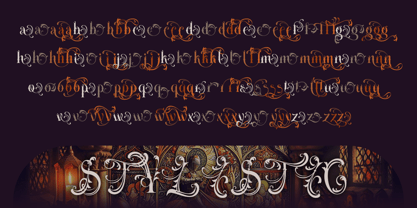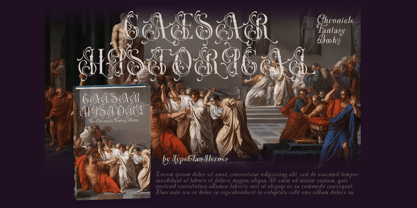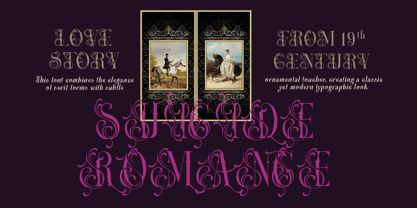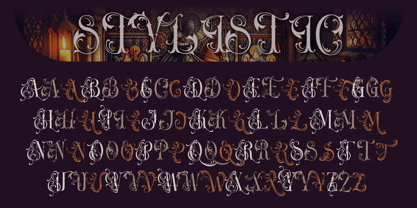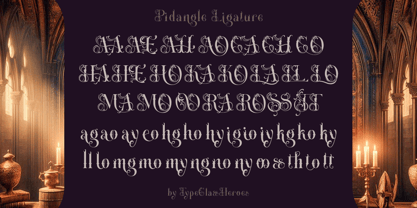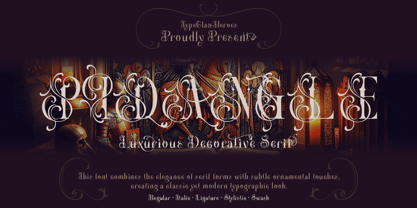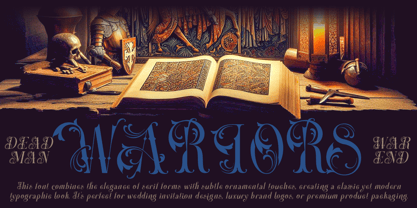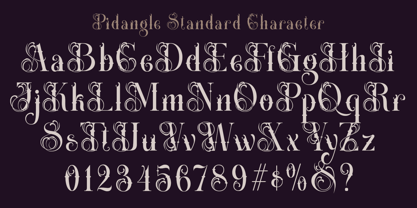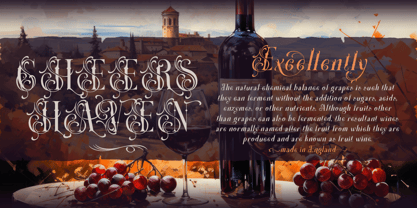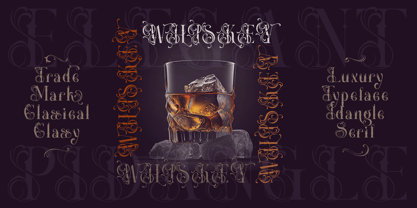
Pidangle
The Pidangle Font Family was designed by Suandana ipandemade and published by TypeClassHeroes. Pidangle contains 2 styles and family package options. More about this family
Introducing Pidangle - Decorative Serif, this font combines the elegance of serif forms with subtle ornamental touches, creating a classic yet modern typographic look. The classic style is perfect to be applied in various formal forms such as invitations, labels, restaurant menus, logos, fashion, make up, stationery, novels, magazines, books, greeting / wedding cards, packaging, labels or any type of advertising purpose makes it ideal for whether you’re creating digital content or printed materials.